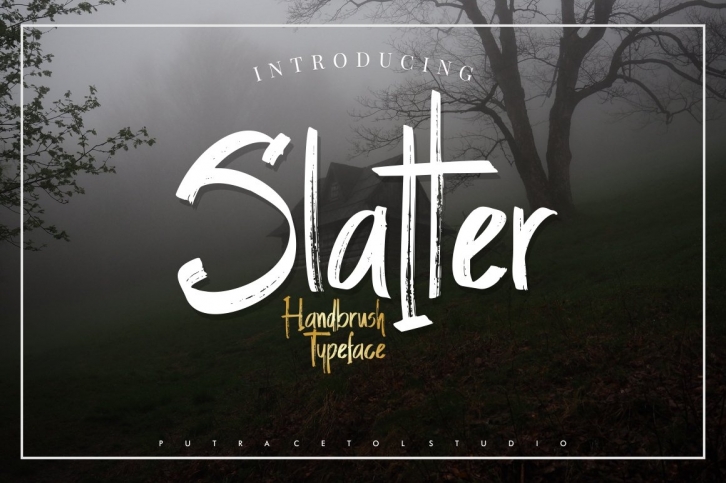
Slatter - Simple Handbrush Font
Introducing, Slatter - Simple Handbrush Font. Slatter is a natural handbrused font. This font help you to make something which need the natural handwritten, like using the real brush. You can use this font for making an awesome lettering, logo, invitation, stationery, wedding designs, social media posts, advertisements, product packaging, product designs, label, photography, watermark, special events and so much more!.